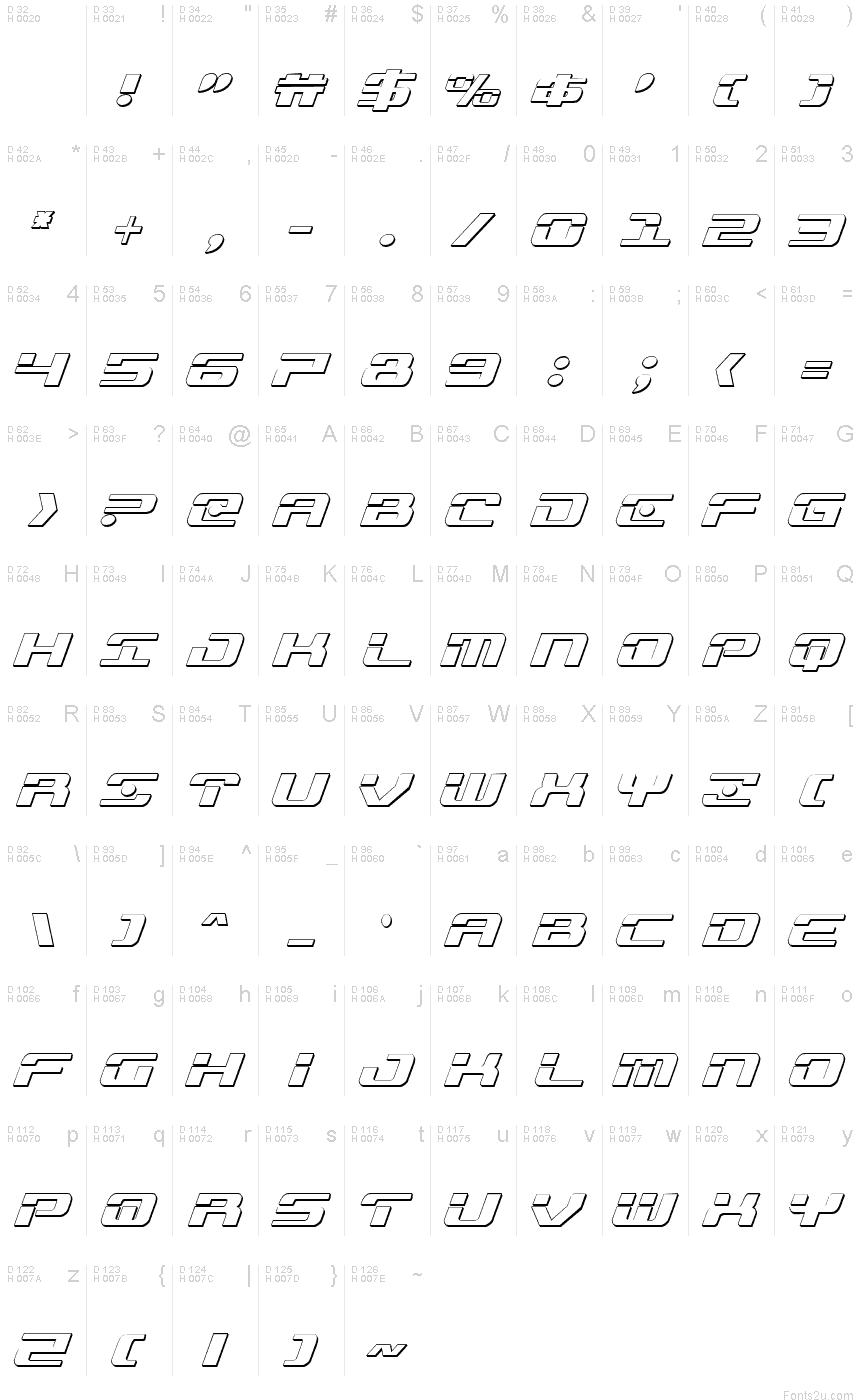
Troopers 3D Italic by Daniel Zadorozny of Iconian Fonts is a free futuristic sans serif with broad, forward-leaning letters. Layered inset lines cut through the open forms, and rounded joins soften the otherwise sharp, aerodynamic silhouette.
Motorsport and science-fiction references make it a convincing fit for racing game graphics, vehicle branding, event posters, and sports merchandise. The outlined layers can echo speed stripes, technical diagrams, and mechanical illustration, turning the lettering into part of the imagery.
Troopers 3D Italic